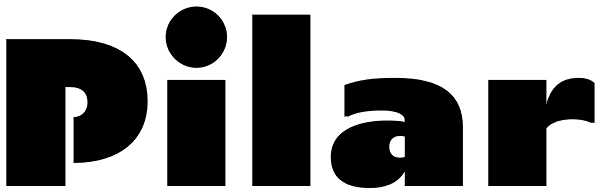
Pilar
Pilar is a new geometric sans serif typeface that was created specifically for display use. Pilar is a contemporary reimagining of European art nouveau typography. Originally, the typeface was designed by Yury Ostromentsky in 2012 for the “Bolshoi...